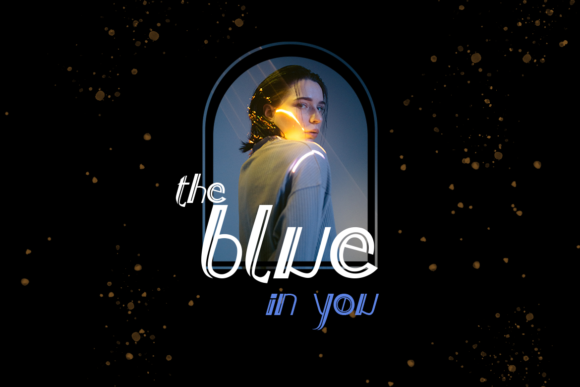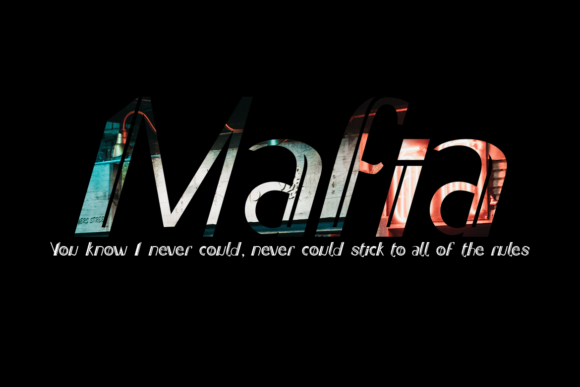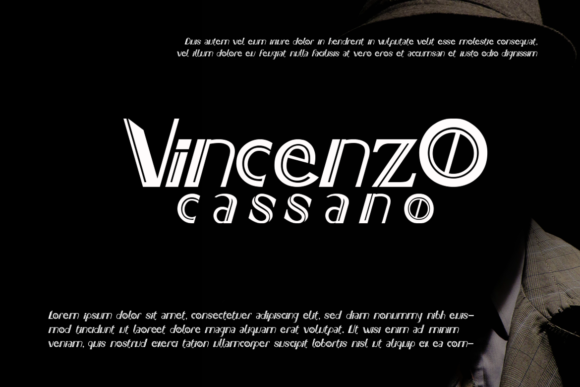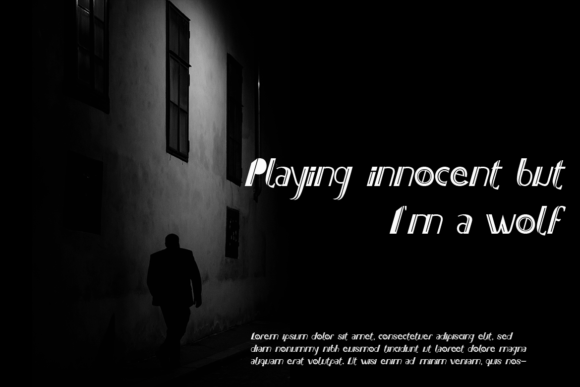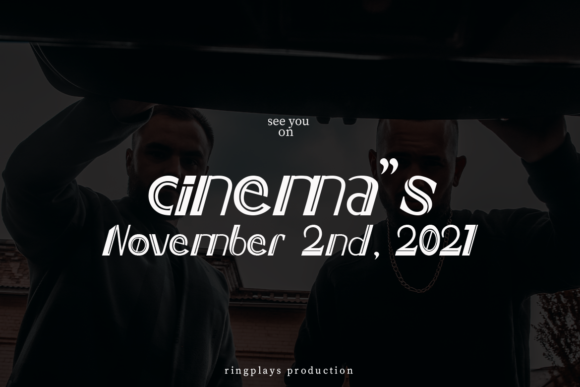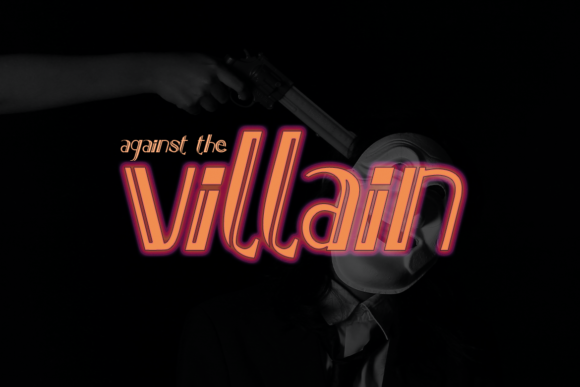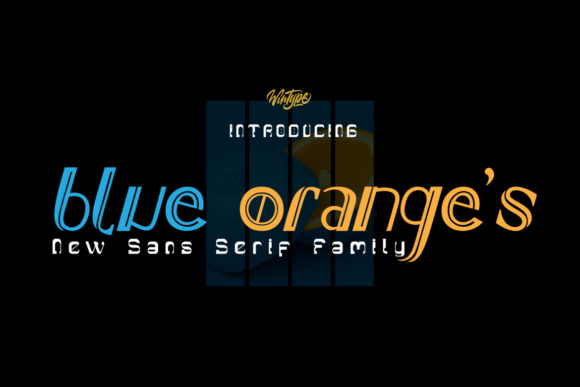
Unleash Your Creativity with Blue Orange’s Font
Are you a designer, crafter, or DIY enthusiast looking for a font that can elevate your creative projects? Look no further than Blue Orange’s Font, a cool and modern display font that’s perfect for a wide range of crafting ideas. From cards and invitations to branding, labels, and more, this versatile font is sure to take your designs to the next level.
What Makes Blue Orange’s Font So Special?
Blue Orange’s Font is a unique and stylish display font that’s designed to make a statement. Its modern and sleek design makes it perfect for projects that require a bold and eye-catching look. The font’s clean lines, smooth curves, and perfect proportions make it highly legible, even at small sizes. Whether you’re creating a logo, a label, or a social media graphic, Blue Orange’s Font is sure to grab attention and leave a lasting impression.
One of the best things about Blue Orange’s Font is its versatility. It’s a font that can be used in a wide range of creative projects, from:
- Cards and invitations: Create beautiful and unique cards for special occasions, such as birthdays, weddings, and holidays.
- Branding and logos: Use Blue Orange’s Font to create a bold and memorable logo for your business or brand.
- Labels and packaging: Add a touch of style and sophistication to your product labels and packaging.
- Social media graphics: Create eye-catching social media graphics that will help you stand out from the crowd.
- Signs and posters: Use Blue Orange’s Font to create bold and attention-grabbing signs and posters.
Why Choose Blue Orange’s Font?
So, why should you choose Blue Orange’s Font for your creative projects? Here are just a few reasons:
- Unique and stylish design: Blue Orange’s Font has a unique and stylish design that’s sure to make your projects stand out.
- Highly legible: The font’s clean lines and smooth curves make it highly legible, even at small sizes.
- Versatile: Blue Orange’s Font can be used in a wide range of creative projects, from cards and invitations to branding and labels.
Tips for Using Blue Orange’s Font
Here are a few tips for using Blue Orange’s Font in your creative projects:
- Experiment with different colors: Blue Orange’s Font looks great in a variety of colors, so don’t be afraid to experiment and find the perfect color for your project.
- Use it with other fonts: Blue Orange’s Font pairs well with other fonts, so try using it with a complementary font to add some visual interest to your project.
- Play with different sizes: Blue Orange’s Font looks great at a variety of sizes, from small and delicate to large and bold.
| Font Name | Blue Orange’s Font |
| Author | WinType |
Blue Orange’s Font is a cool and modern display font that’s perfect for designers, crafters, and DIY enthusiasts. Its unique and stylish design, high legibility, and versatility make it a great choice for a wide range of creative projects. Whether you’re creating cards, branding, labels, or social media graphics, Blue Orange’s Font is sure to elevate your designs and help you stand out from the crowd. So why wait? Add Blue Orange’s Font to your favorite creations today and see the amazing outcome for yourself!